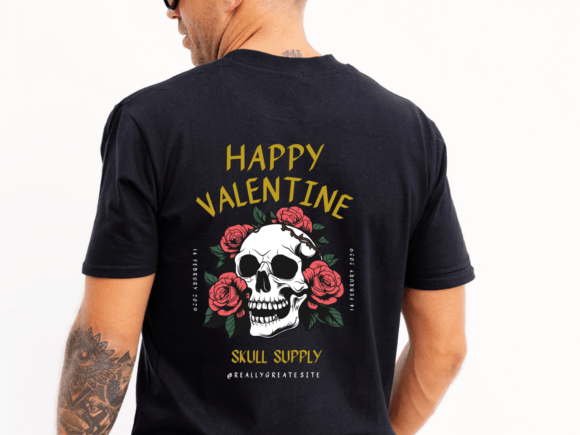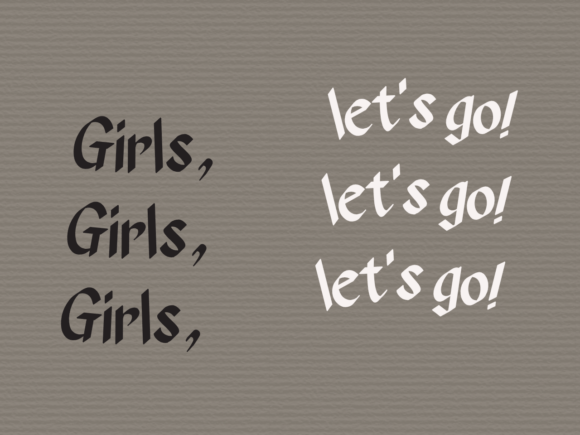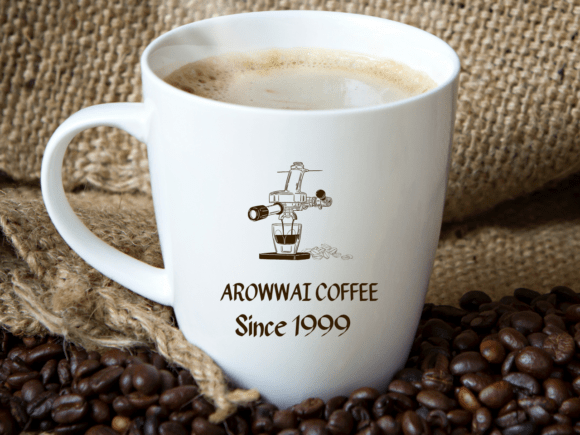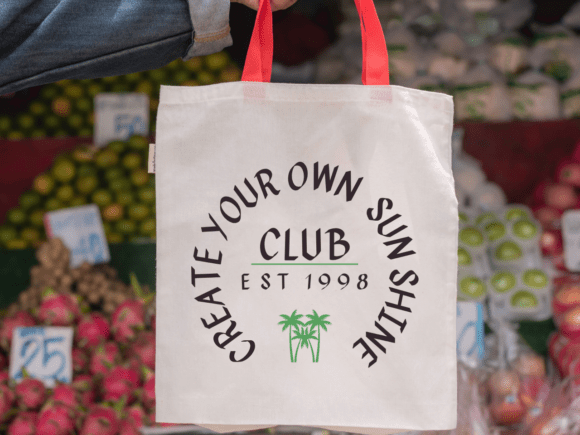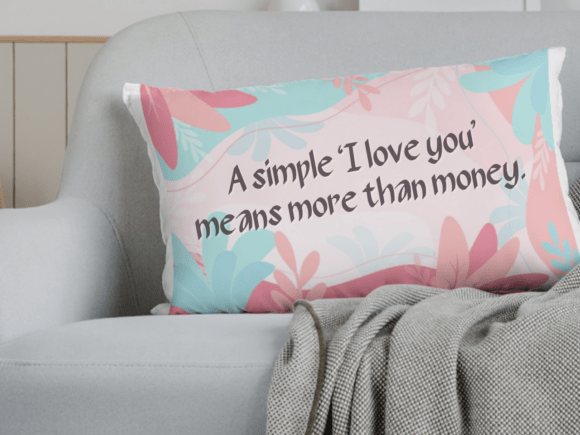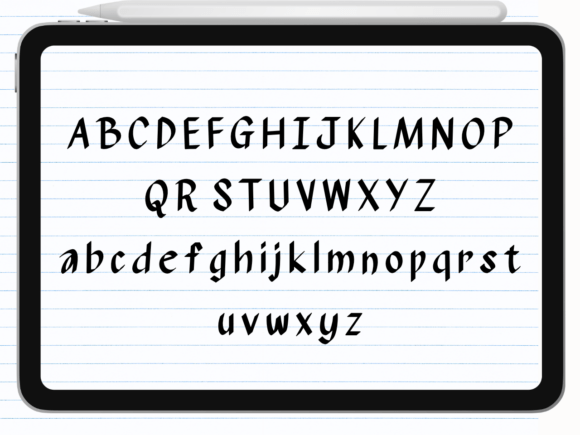
Aaron Font: Elevate Your Design with a Unique Handwritten Style
In the world of typography, a well-designed font can make all the difference in creating a lasting impression. Introducing Aaron Font, a beautiful handwritten font that adds a touch of elegance and distinctiveness to any design project. With its unique concept inspired by the delicate tip of a vine, Aaron Font is the perfect choice for designers and crafters looking to add a personal touch to their work.
The Concept Behind Aaron Font
Aaron Font is more than just a font – it’s a work of art. The concept behind this font is to create a design that stands out from the rest, with its own identity and character. The inspiration from the tip of a vine gives Aaron Font a natural, organic feel that’s perfect for a wide range of design projects. Whether you’re creating a letter, designing a greeting card, or crafting a logo, Aaron Font is the perfect choice to add a touch of sophistication and elegance.
Uses of Aaron Font
Aaron Font is a versatile font that can be used in a variety of design projects, including:
- Letter Design: Add a personal touch to your letters with Aaron Font’s unique handwritten style.
- Greeting Cards: Create beautiful and elegant greeting cards for special occasions like weddings, birthdays, and holidays.
- Wedding Cards: Make your wedding cards stand out with Aaron Font’s romantic and sophisticated design.
- Quotes: Add a touch of elegance to your quotes with Aaron Font’s beautiful handwritten style.
- Goodnotes and Planners: Use Aaron Font to add a personal touch to your Goodnotes and planners.
- Handwritten Notes: Create beautiful handwritten notes with Aaron Font’s unique design.
- Logos: Use Aaron Font to create a unique and memorable logo for your brand.
- Teachers and Educators: Add a touch of elegance to your teaching materials with Aaron Font’s beautiful handwritten style.
Benefits of Using Aaron Font
Using Aaron Font in your design projects offers several benefits, including:
- Uniqueness: Aaron Font’s unique design ensures that your work stands out from the rest.
- Elegance: Aaron Font adds a touch of elegance and sophistication to any design project.
- Versatility: Aaron Font can be used in a wide range of design projects, from letters and greeting cards to logos and teaching materials.
- Customization: With Aaron Font, you can choose your own font design art according to your convenience.
Tips for Using Aaron Font
Here are some tips for using Aaron Font in your design projects:
- Experiment with Different Sizes: Try using Aaron Font in different sizes to create visual interest and emphasis.
- Combine with Other Fonts: Combine Aaron Font with other fonts to create a unique and interesting design.
- Use in Digital and Print Designs: Use Aaron Font in both digital and print designs to create a cohesive look.
Aaron Font is a beautiful handwritten font that adds a touch of elegance and distinctiveness to any design project. With its unique concept inspired by the delicate tip of a vine, Aaron Font is the perfect choice for designers and crafters looking to add a personal touch to their work. Whether you’re creating a letter, designing a greeting card, or crafting a logo, Aaron Font is the perfect choice to elevate your design and make it stand out.